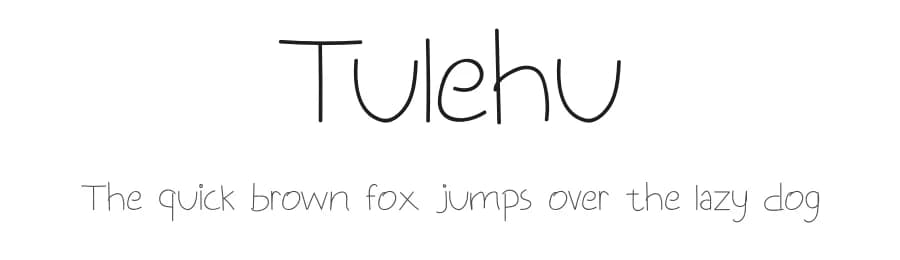
About Tulehu Font
Tulehu is a script & handwritten font designed by LetterCraft Studio. It includes 103 glyphs, a regular weight, OTF (CFF) format, and 197 languages. Tulehu is free to download; check the license details on this page before commercial use. Script & handwritten fonts like Tulehu work best for wedding invitations, greeting cards, signatures, and elegant branding.
Tulehu Font is a script font that shines as a display or heading face. Pair it with a clean sans-serif or serif font for body text β the contrast creates a clear hierarchy while the two styles stay balanced and easy to read.